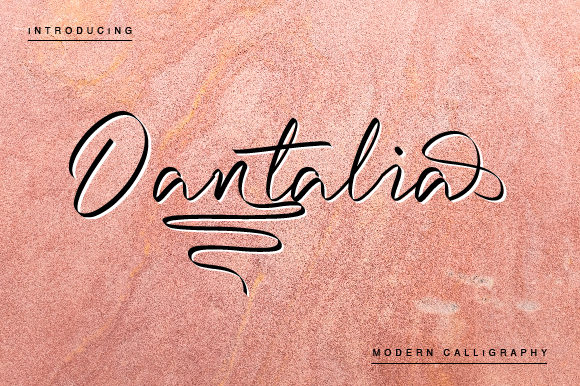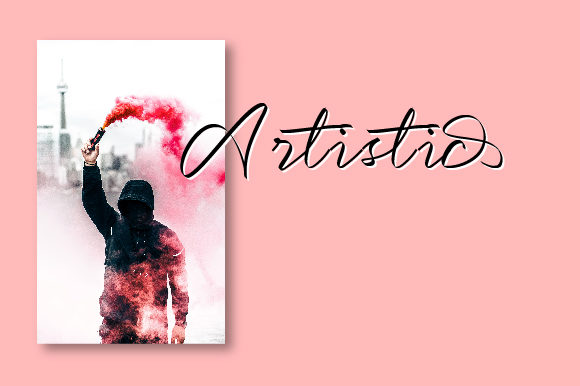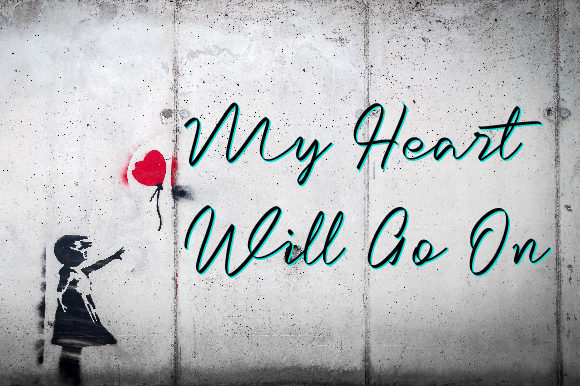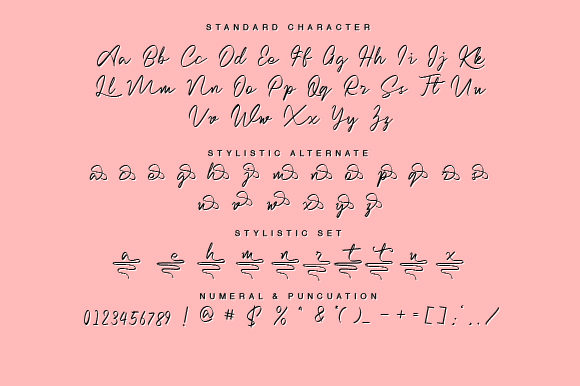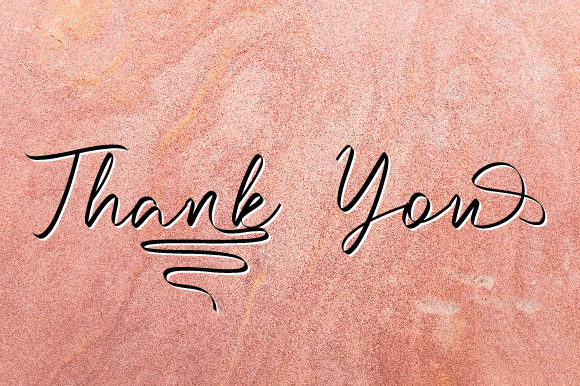
HomeScript FontsDantalia Font Script Fonts Dantalia Font FacebookTwitterPinterestWhatsApp Dantalia Font Poster 2 Dantalia Font Poster 3 Dantalia Font Poster 4 Dantalia Font Poster 5 About Dantalia Font Dantalia is an experimental and bold script font that radiates charm. Fall in love with this bold swashes! DOWNLOAD NOW People also explored Kathica Font Romantic Loves Monogram Font PN Ski-Doozy and Ski-Dazy Font Duo Font Farmhouse Font Los Vampiros Kingsmead Script Arloji Font Ariuna Monogram Font Green House Font 146 0 TagsDantalia Font Previous articleChalisa FontNext articleClaudira Font LEAVE A REPLY Cancel reply Comment: Please enter your comment! Name:* Please enter your name here Email:* You have entered an incorrect email address! Please enter your email address here Website: Save my name, email, and website in this browser for the next time I comment. Personal Use Free Amellis Path Personal Use Free Read more about this font Historise Personal Use Free Read more about this font Abberancy Personal Use Free Read more about this font Rocketto Personal Use Free Read more about this font BLOG Best Fonts for T-Shirt Design – Top 2025 Picks In 2025, t-shirt design has become more than just fashion—it's a form of self-expression. Whether you're... The 10 Best Handwriting Fonts to Add Personality to Your Designs Best Fonts for YouTube Videos: Make Your Thumbnails Stand Out Free Fonts Risk: Why Free Fonts Can Be Dangerous for Designers